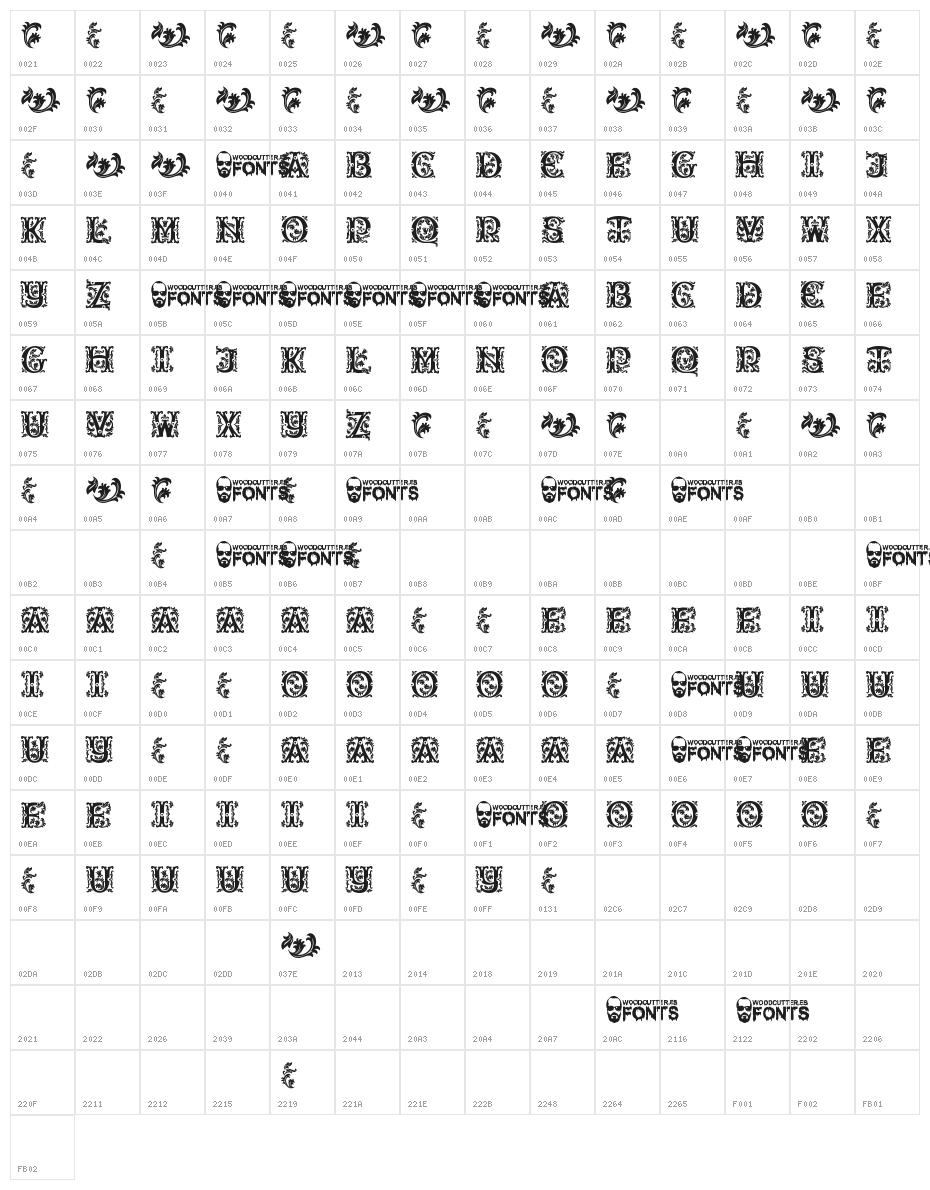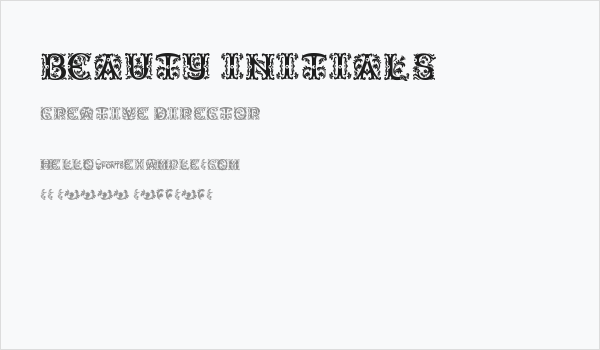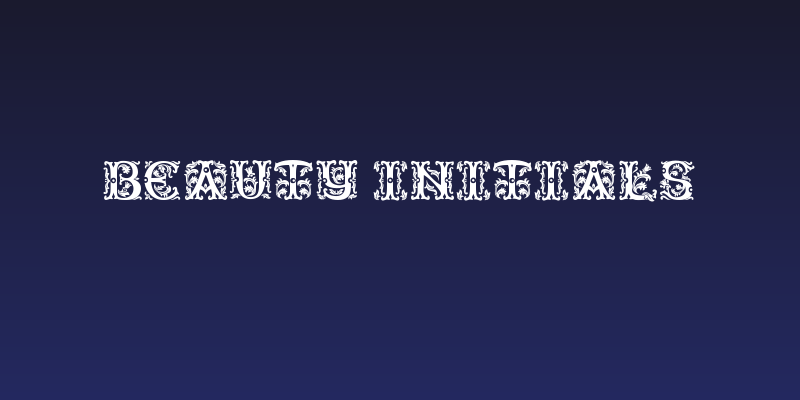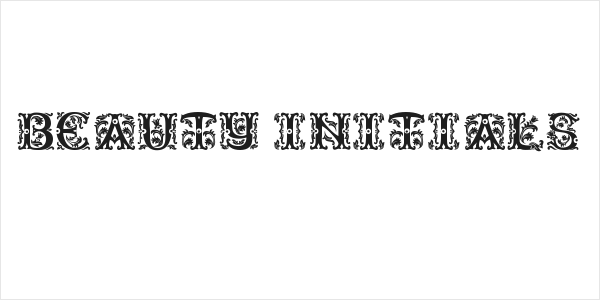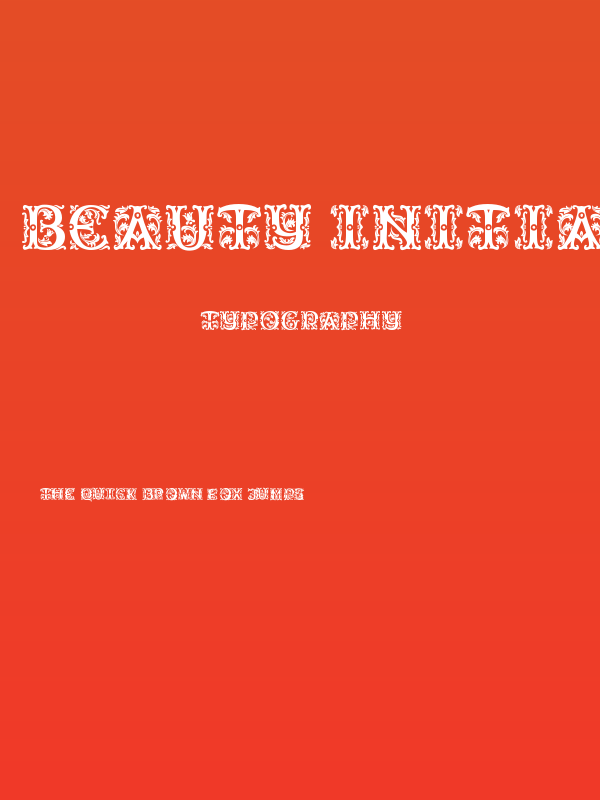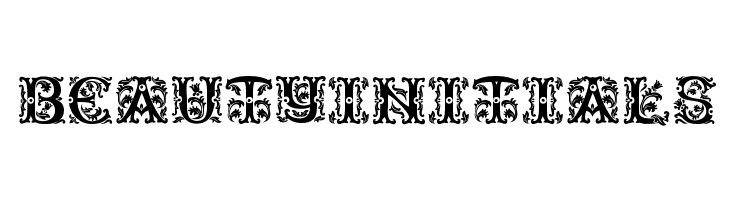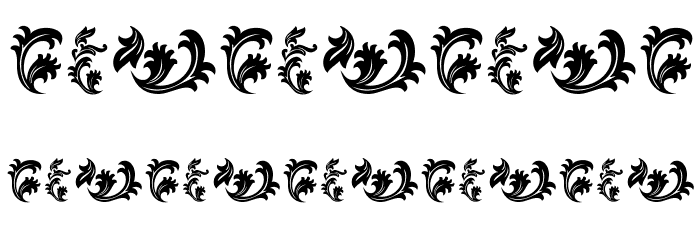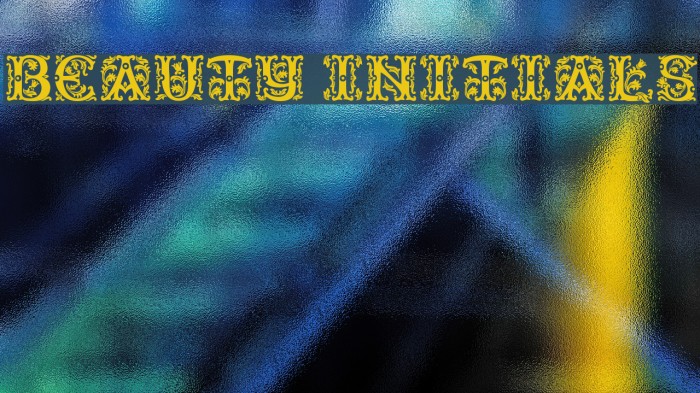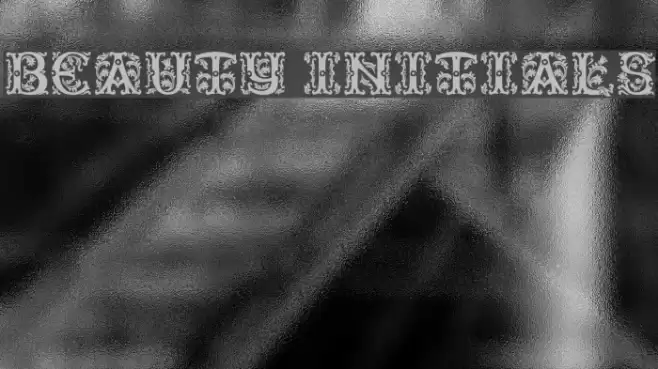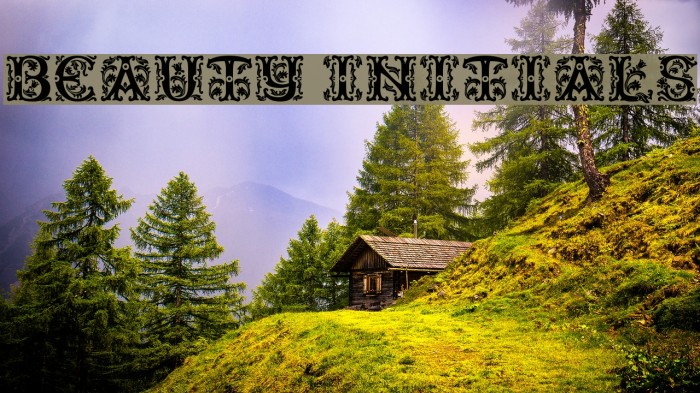
Beauty Initials Font
Beauty Initials Description
This font features an elaborate and ornate design, characterized by intricate floral and vine-like embellishments that intertwine with each letter. The uppercase letters are bold and decorative, making a strong visual impact. The detailed patterns within each character give it a luxurious and vintage feel, reminiscent of classical art and design. The font's complexity and artistic flair make it suitable for projects that require a touch of elegance and sophistication.
| Overall Style | Vintage |
| Use Case | Headlines, Logos, Decorative purposes |
| Proposed Projects | Ideal for wedding invitations, luxury branding, decorative headings, and artistic projects that require a vintage or classical touch. |